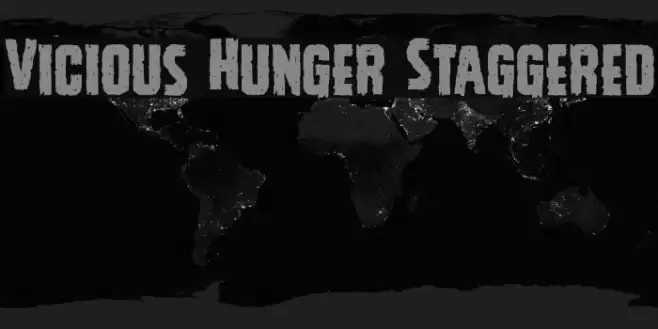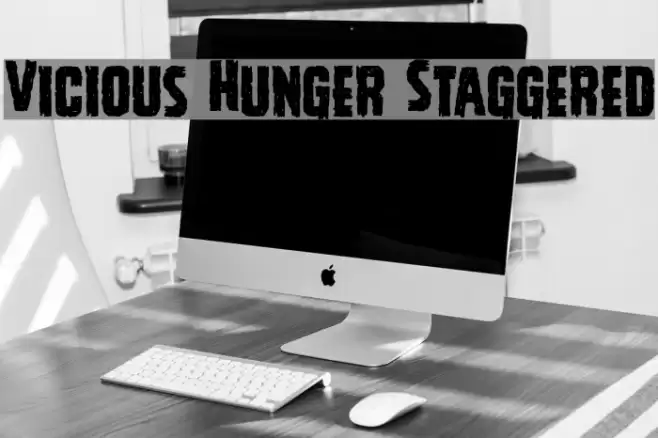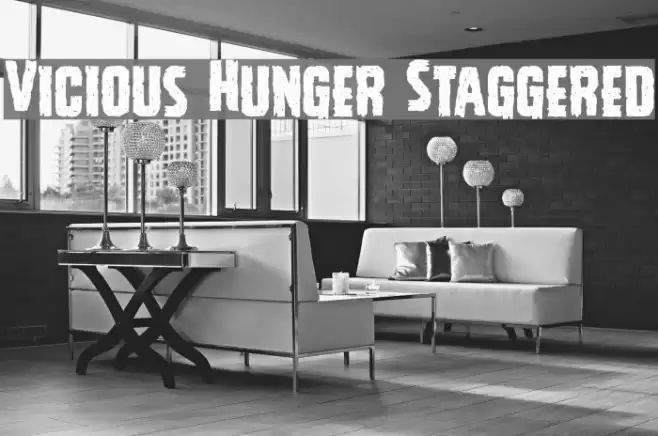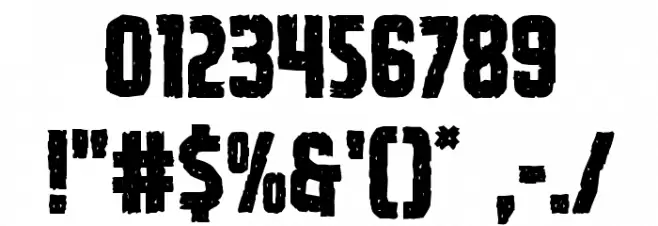
Vicious Hunger Staggered Font
Vicious Hunger Staggered Description
This font features a bold and rugged design, characterized by its distressed and textured appearance. The letters have a rough, hand-drawn quality, giving them a raw and edgy feel. The uppercase and lowercase letters maintain a consistent style, with thick strokes and uneven edges that suggest a sense of urgency and intensity. The numbers and special characters follow the same aesthetic, making the font suitable for creating impactful and attention-grabbing designs. Its unique style is perfect for projects that require a gritty and rebellious look.
A bold, distressed font with a rugged, hand-drawn appearance from Uncategorized fonts.
- Proposed Projects: Ideal for album covers, posters, branding for extreme sports, or any project needing a gritty, rebellious aesthetic.